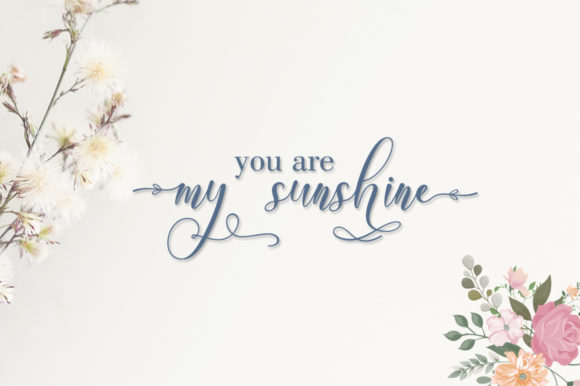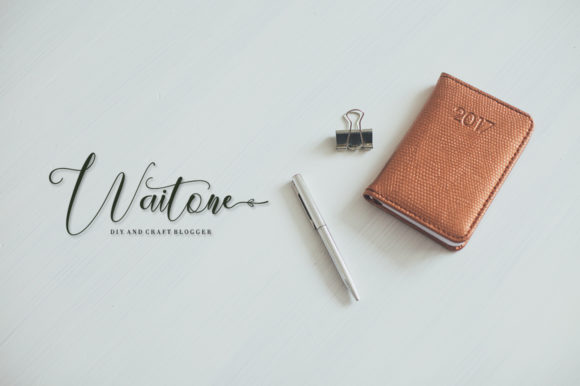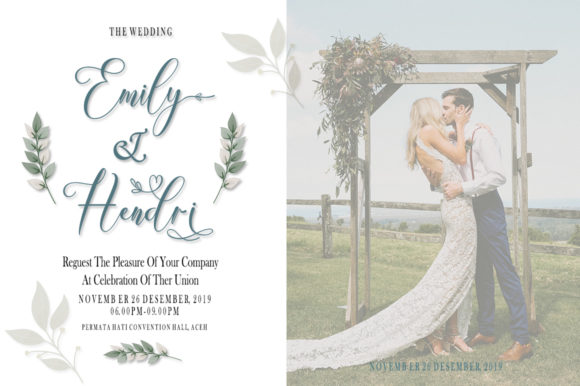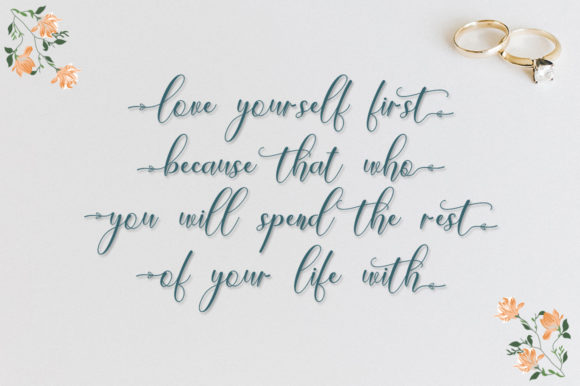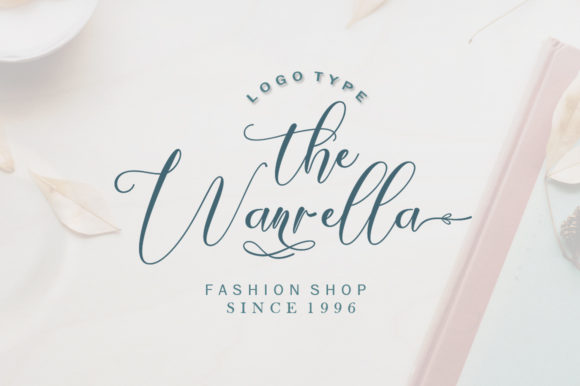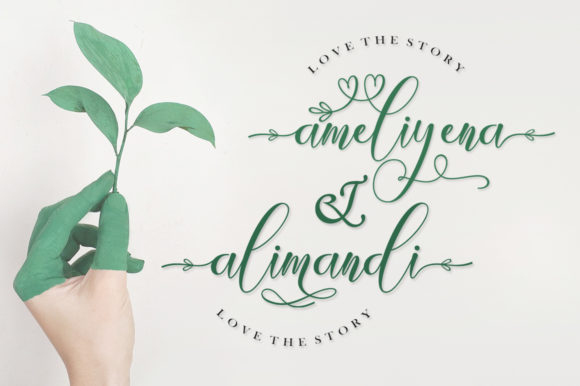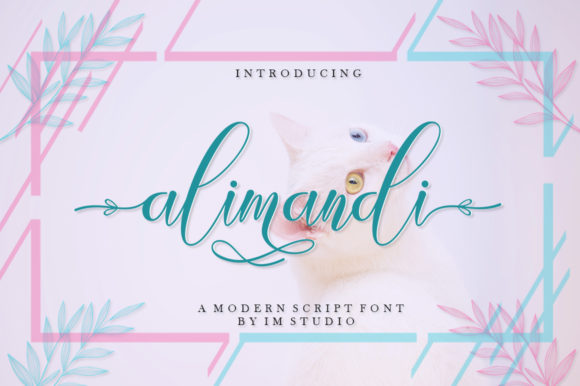
Introducing Alimandi Font: The Perfect Handwritten Companion for Handmade Creations
In the world of design, typography plays a crucial role in conveying the tone and personality of a brand or product. For crafters, makers, and designers who specialize in handmade goods, finding the right font can be a game-changer. That’s where Alimandi Font comes in – a light and charming handwritten font that’s tailor-made for all things hand-made.
The Story Behind Alimandi Font
Alimandi Font is a carefully crafted typeface that embodies the warmth and personality of handwritten script. Its light and airy feel makes it perfect for designs that require a touch of elegance and sophistication. Whether you’re creating labels for your artisanal products, designing a logo for your craft business, or simply looking for a beautiful font to add a personal touch to your digital creations, Alimandi Font is the perfect choice.
Key Features of Alimandi Font
- Handwritten charm: Alimandi Font boasts a beautiful, handwritten aesthetic that’s perfect for adding a personal touch to your designs.
- Light and airy: The font’s light weight and delicate feel make it ideal for designs that require a touch of elegance and sophistication.
- Highly versatile: Alimandi Font can be used for a wide range of design projects, from labels and logos to social media graphics and digital invitations.
- Easy to read: Despite its delicate feel, Alimandi Font is highly legible, making it perfect for designs that require a clear and concise message.
Perfect for Handmade and Crafting Projects
As a font specifically designed for handmade and crafting projects, Alimandi Font is perfect for:
- Product labels: Add a personal touch to your product labels and make your handmade goods stand out.
- Logo design: Create a beautiful and unique logo for your craft business that reflects your brand’s personality.
- Social media graphics: Use Alimandi Font to create eye-catching social media graphics that showcase your handmade products.
- Digital invitations: Add a touch of elegance to your digital invitations and make them truly special.
Why Choose Alimandi Font?
With so many fonts available, why choose Alimandi Font? Here are just a few reasons:
- Unique and distinctive: Alimandi Font has a unique and distinctive style that’s sure to set your designs apart.
- High-quality design: The font is carefully crafted to ensure that it’s of the highest quality and perfect for professional designs.
| Author | IM Studio |
In conclusion, Alimandi Font is a beautiful and charming handwritten font that’s perfect for all things hand-made. Its light and airy feel, combined with its highly versatile nature, make it the perfect choice for designers and crafters who want to add a personal touch to their designs. Whether you’re creating product labels, logos, social media graphics, or digital invitations, Alimandi Font is the perfect companion for your handmade creations.